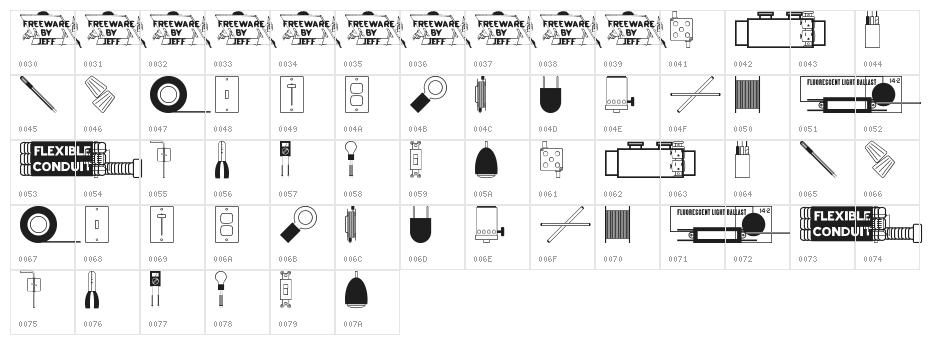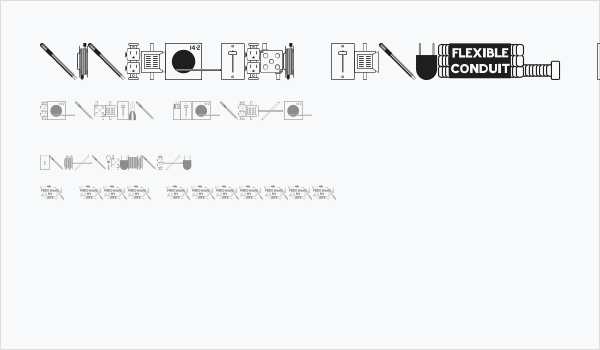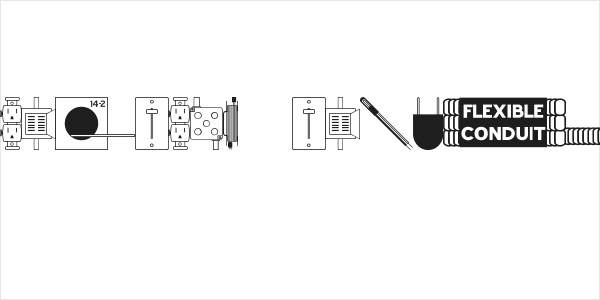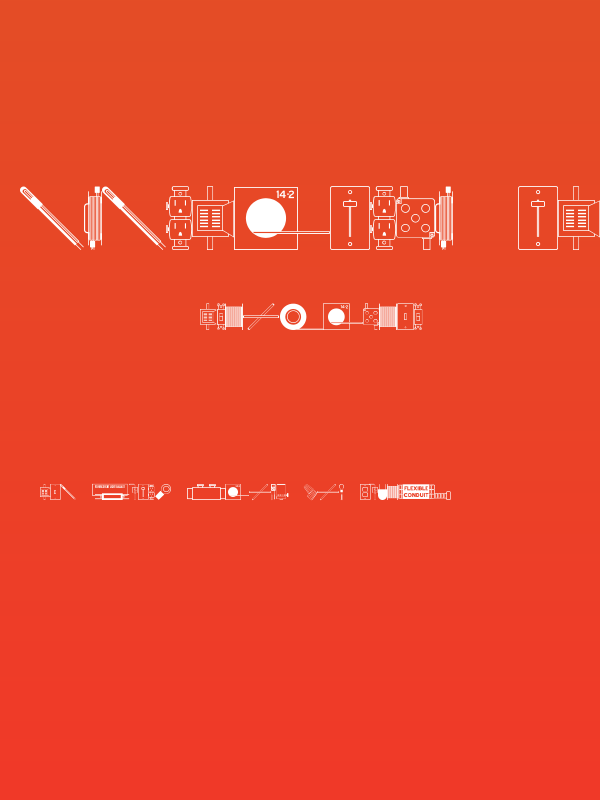
Electrical Items JL Font
Electrical Items JL Description
A decorative font composed of detailed electrical item illustrations forming each character, including tools, switches, wires, and other electrical components. The characters are highly pictorial, making them visually complex and thematic.
| Overall Style | Decorative, Technical, Thematic |
| Use Case | Headlines, Logos, Posters, Educational Materials |
| Proposed Projects | Educational posters, themed event flyers, technical diagrams, novelty signage, STEM classroom materials. |